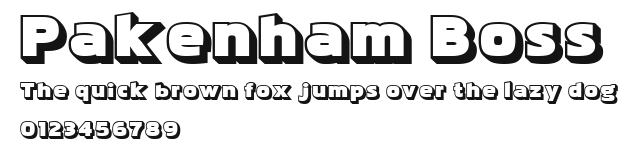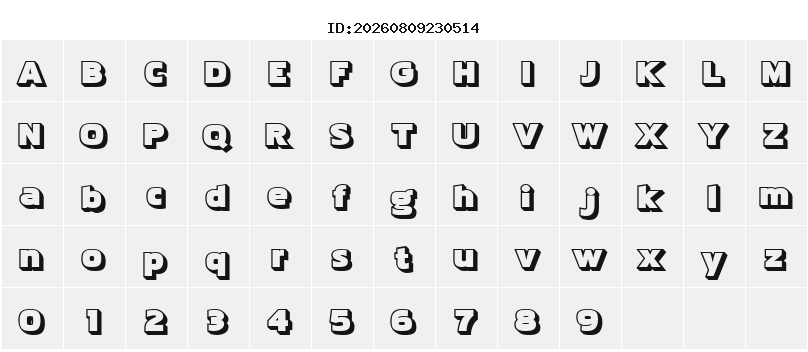
• Font Name: Pakenham Boss
• Designer: Ray Larabie
About Pakenham Boss.ttf
Pakenham Boss.ttf is a modern, elegant sans-serif font designed for ultimate readability and visual harmony. Perfect for branding, headlines, web design, and print materials.